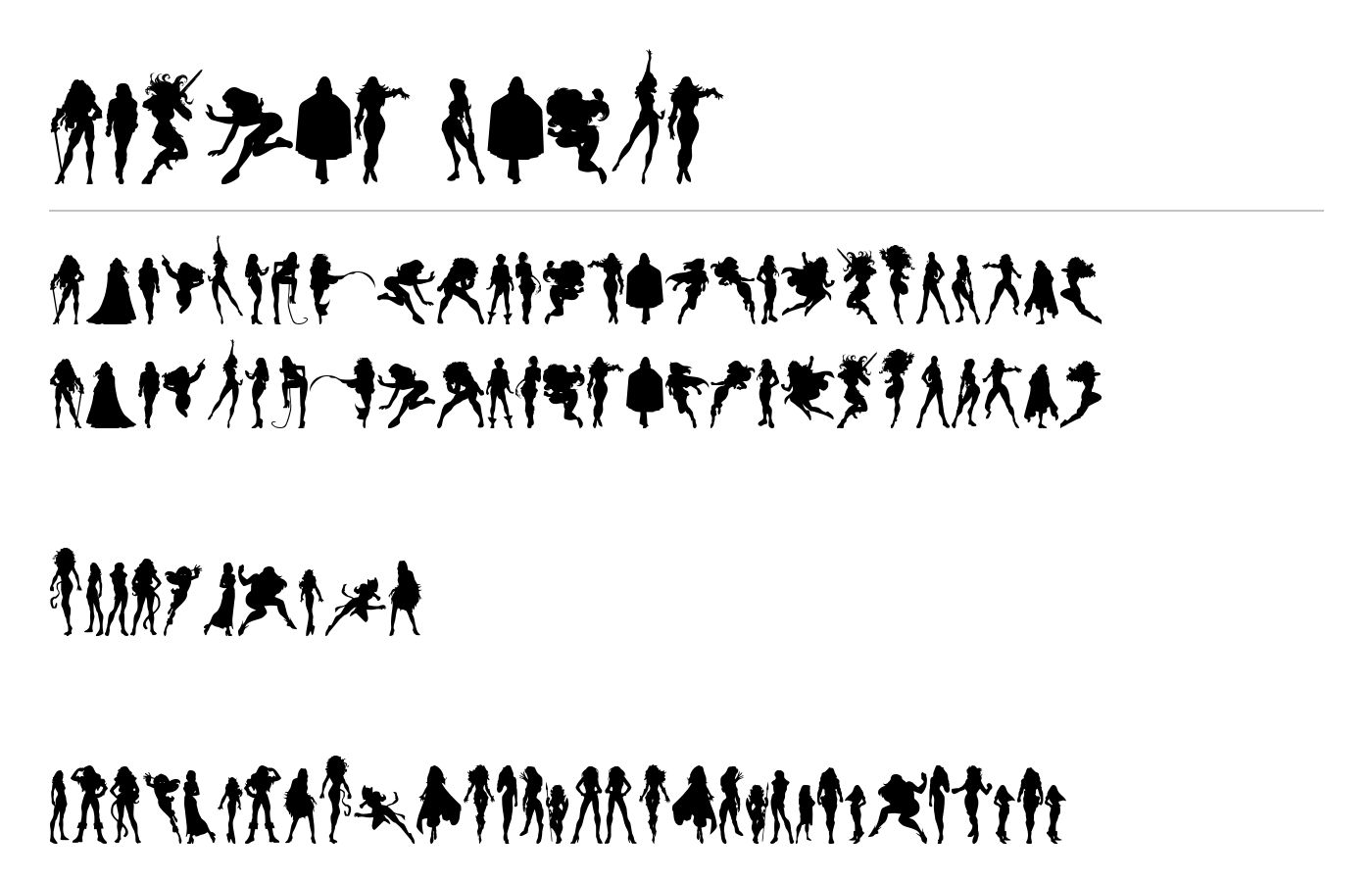
Action Women Font is a bold and dynamic silhouette typeface featuring various female action-hero poses, creating a strong and empowering visual impact. This symbol font is perfect for designs seeking to convey energy, strength, and confidence, making it ideal for comic books, posters, and branding that celebrates powerful women. Its striking, figure-based shapes add a playful yet fierce personality to any creative project.
Action Women Font